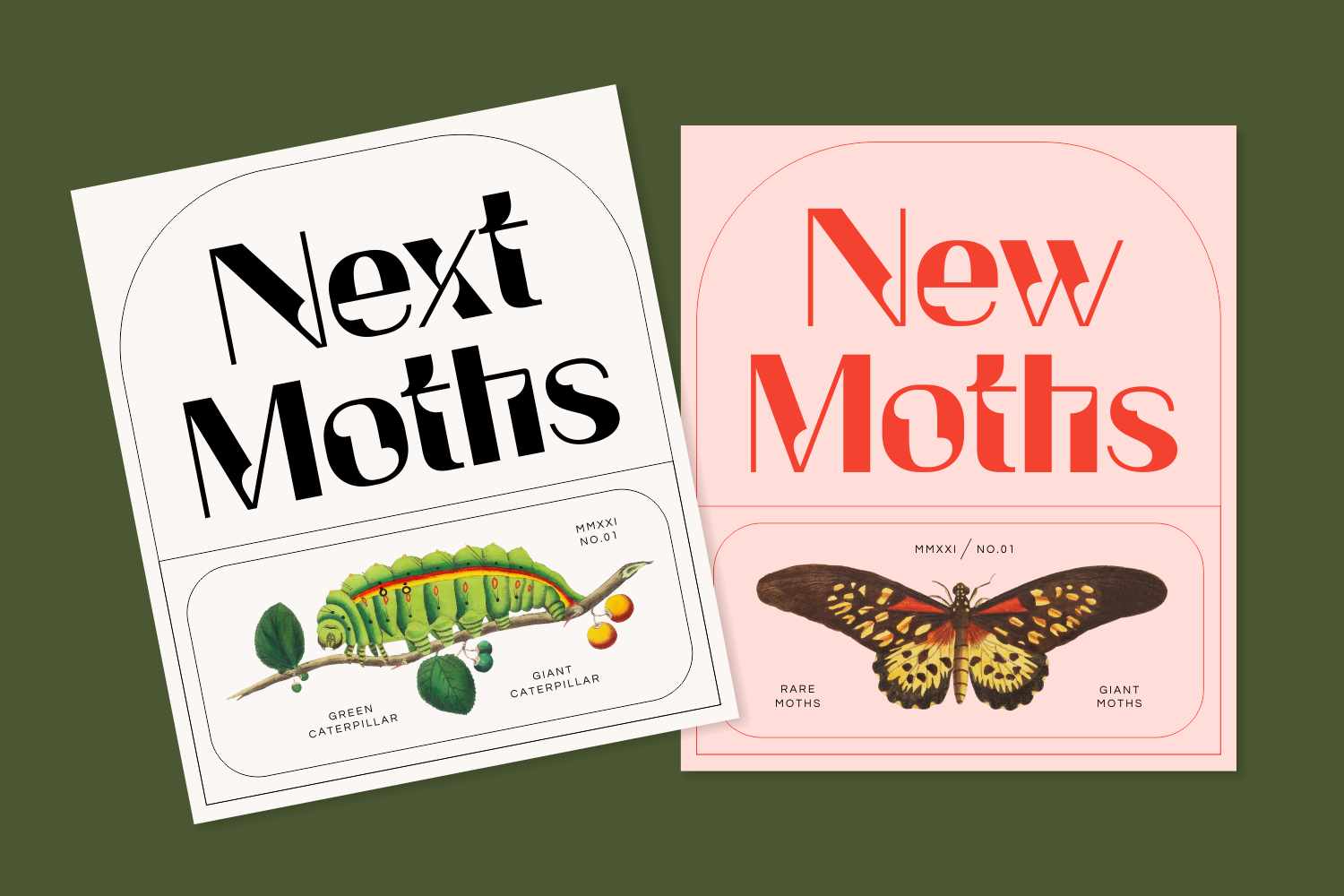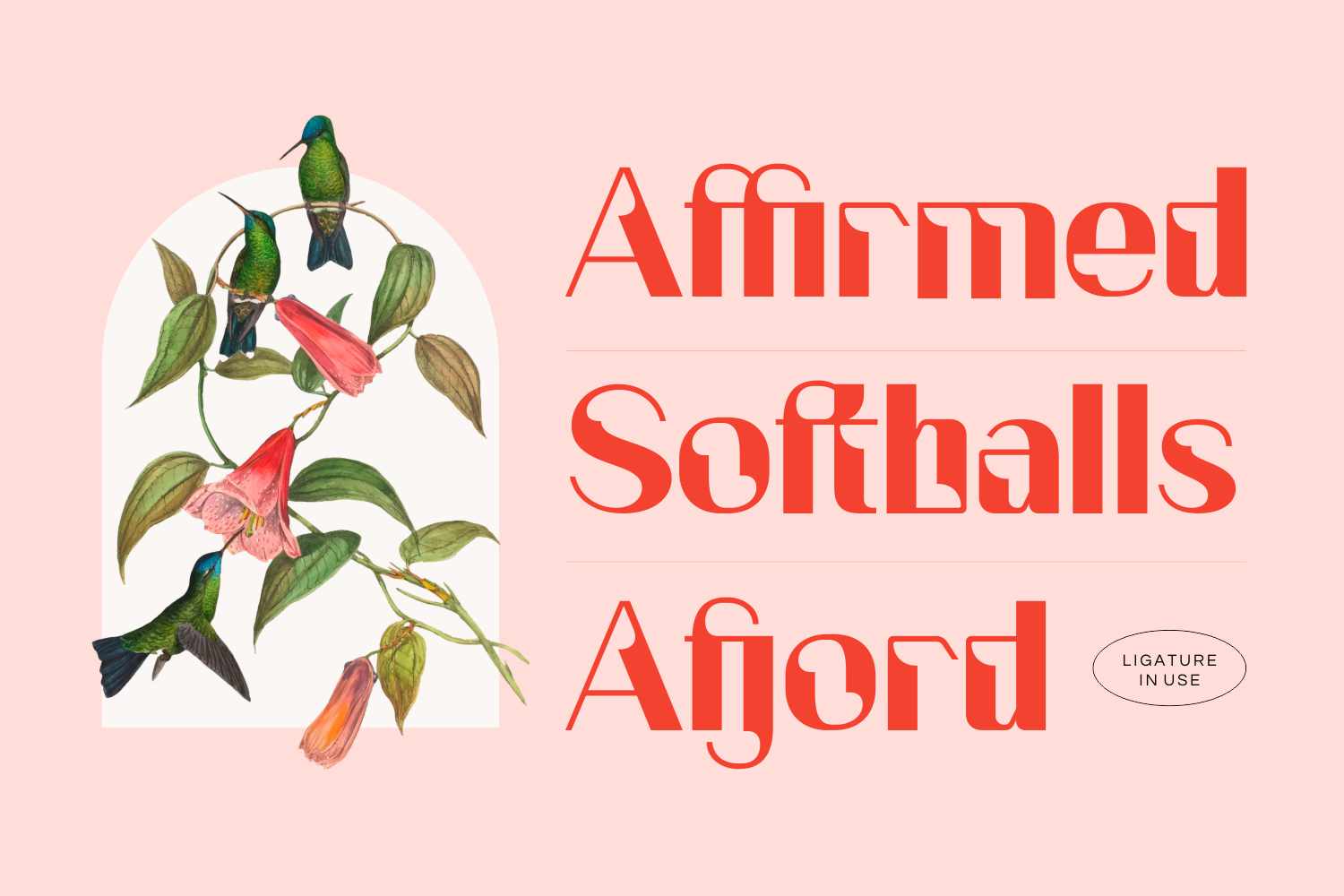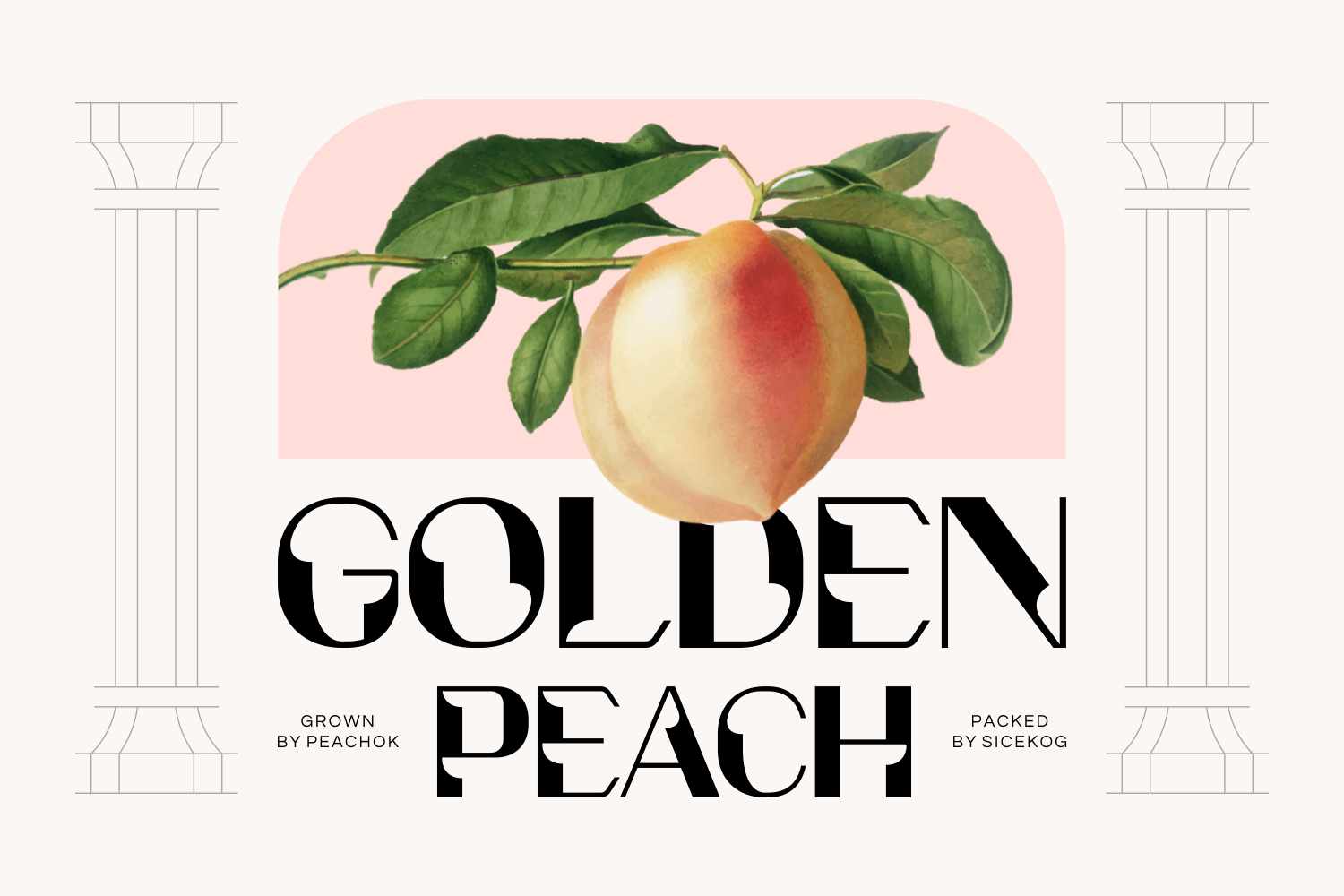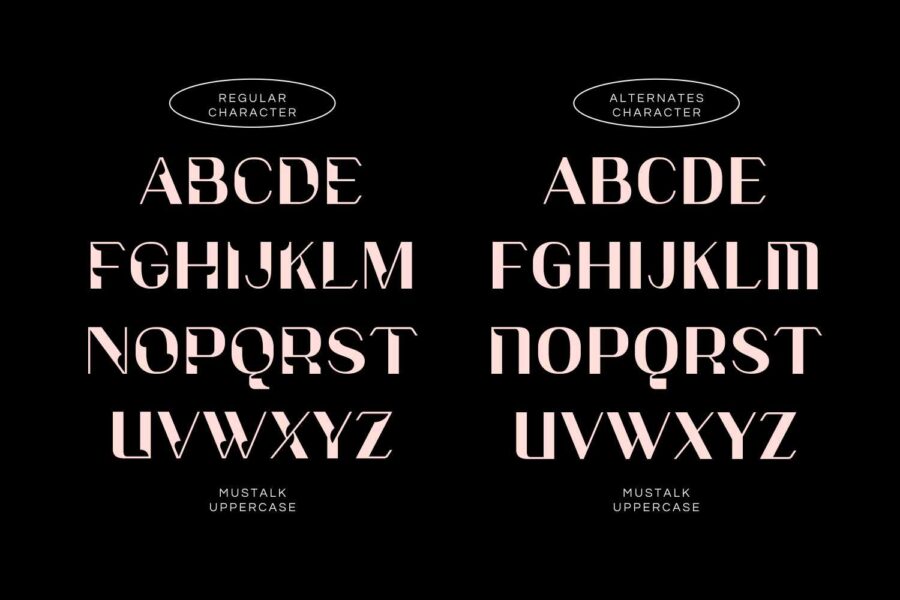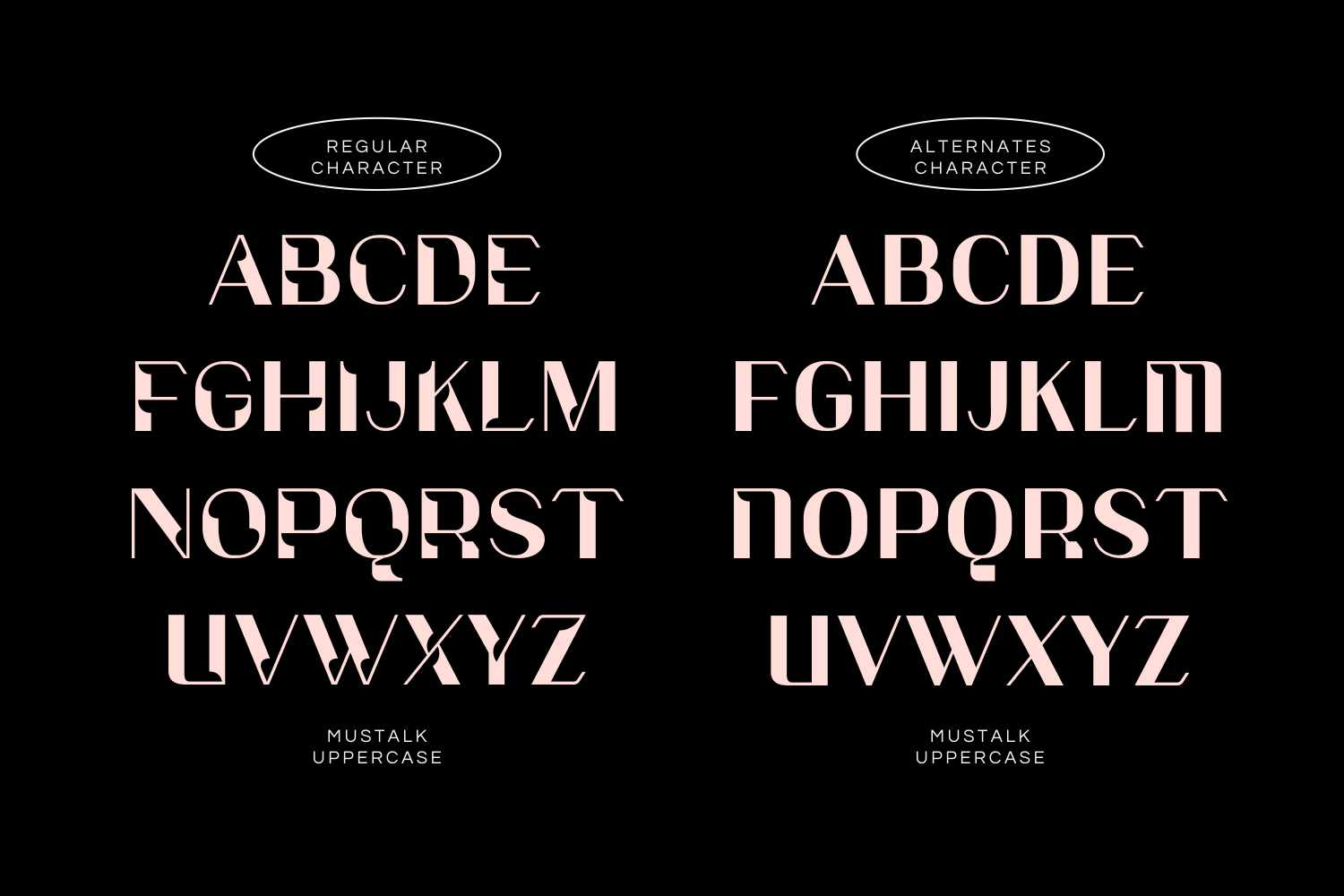
Mustalk is a modern display font that combines bold character shapes with stylish cuts and futuristic accents, offering a unique typographic personality. Each letterform is sculpted with high contrast and calculated geometry, making it ideal for projects that demand attention. Such as branding, editorial headlines, packaging, or artistic posters. Mustalk is equipped with sophisticated alternate characters and ligatures, giving designers the freedom to experiment with tone and rhythm.
Balancing between vintage structure and modern abstraction, Mustalk maintains readability while embracing typographic style. Mustalk works best in contemporary editorial designs, creative brand identities, or retro-inspired visuals with a modern twist, its elegance and edge make Mustalk a versatile choice for expressive visual storytelling.
Mustalk